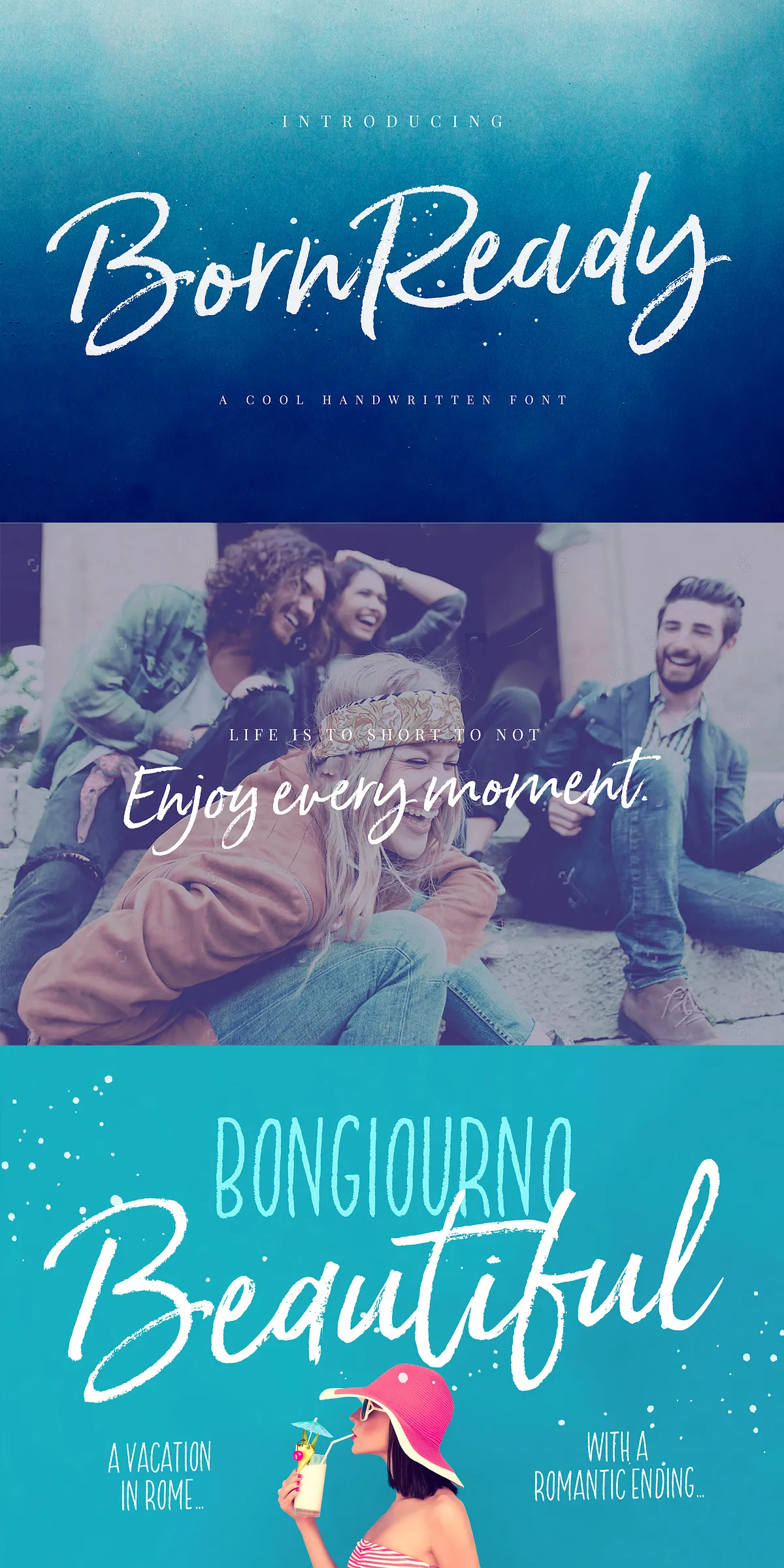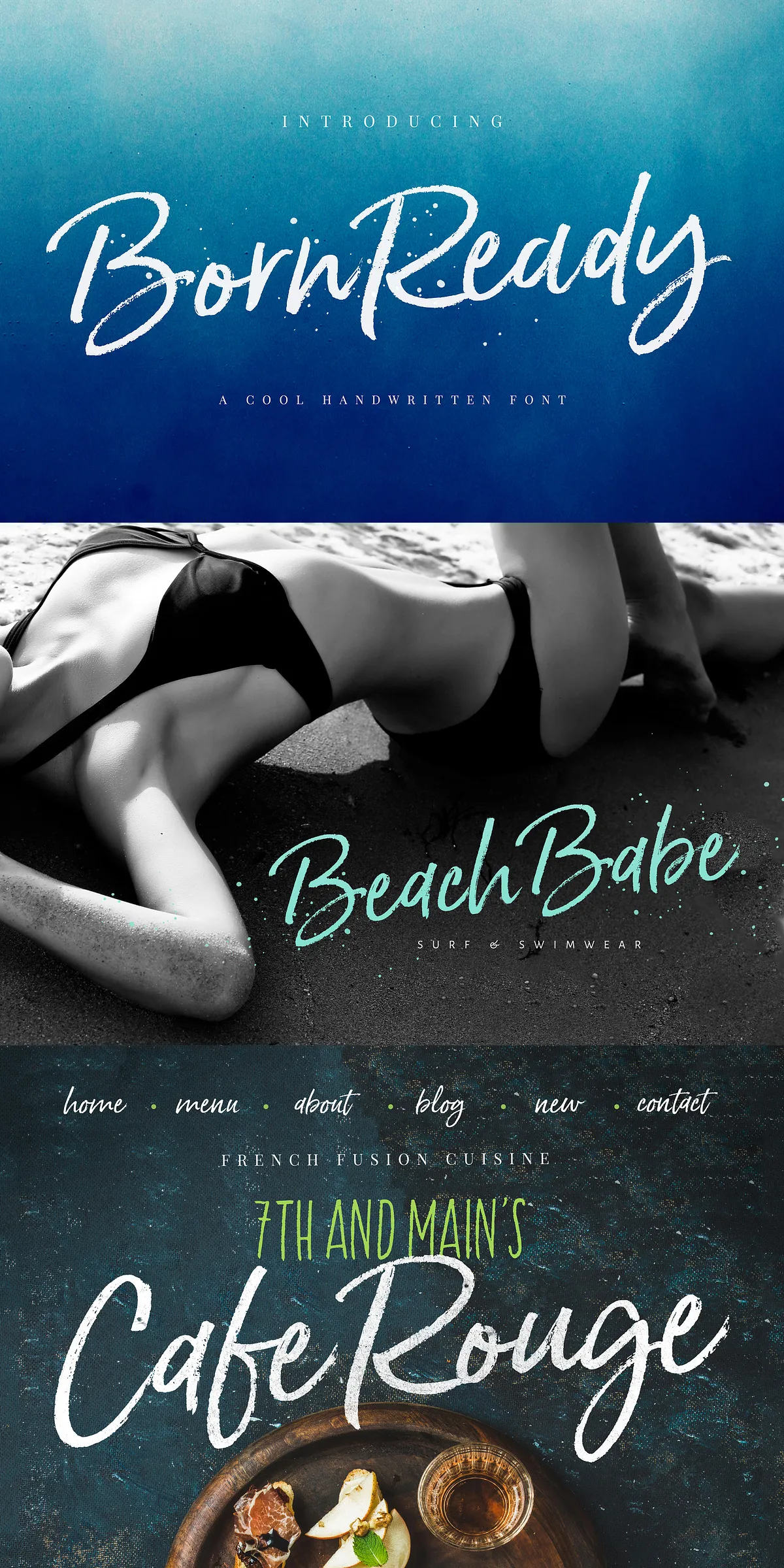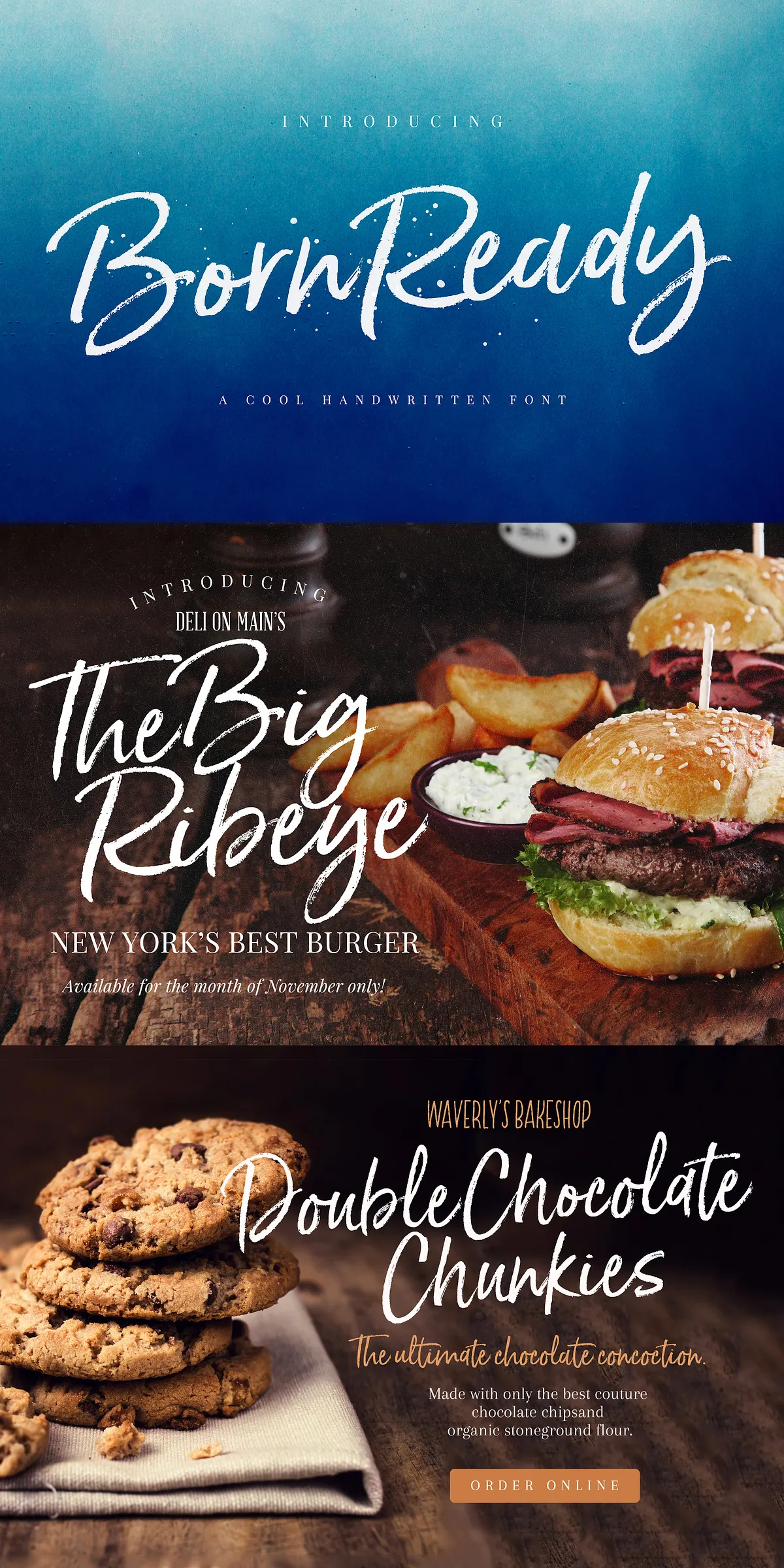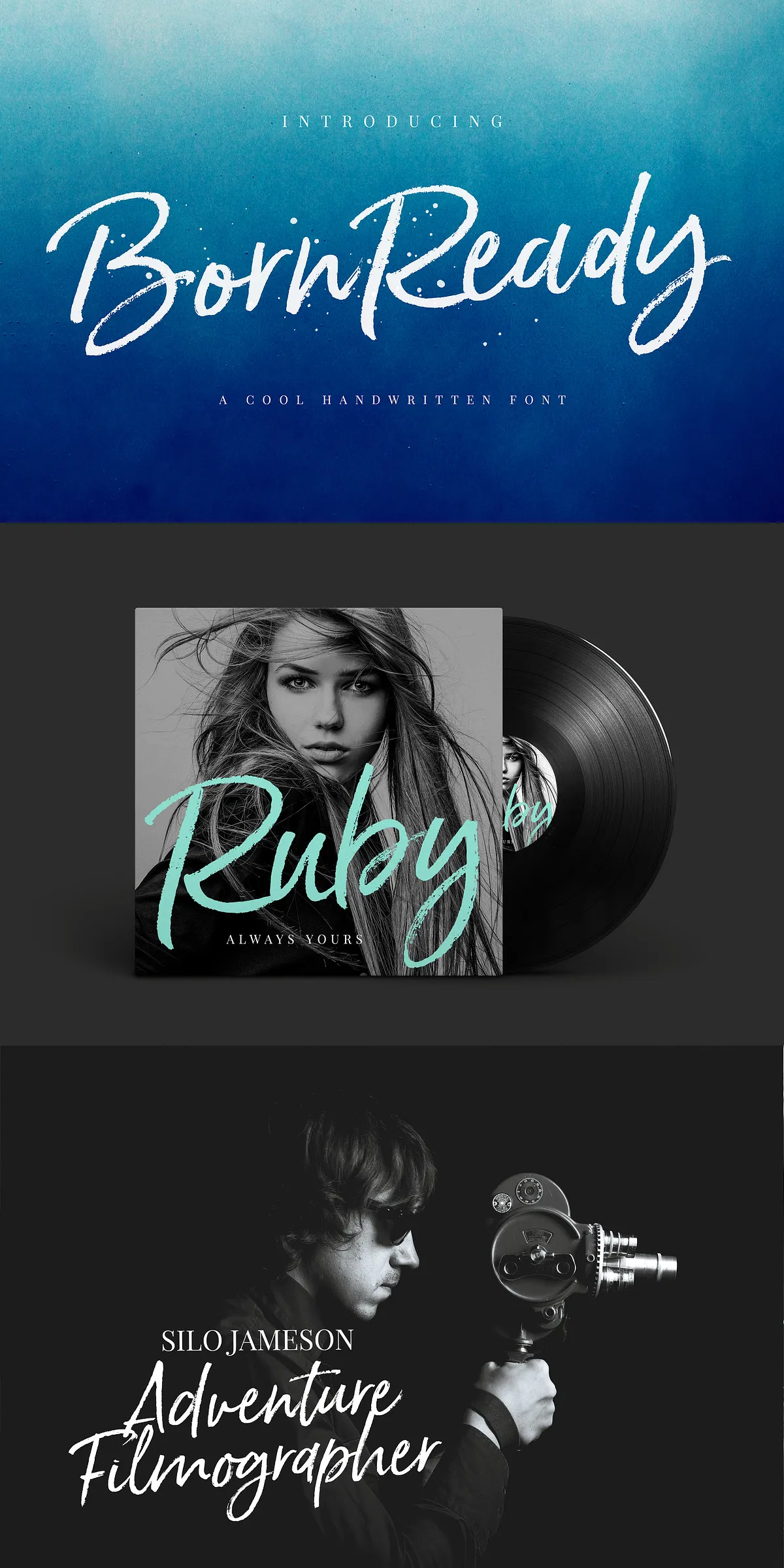
Step into the spotlight with Born Ready, a high-impact, dry marker-inspired handwritten font that brings raw, authentic texture and expressive personality to your designs. Crafted for creators who crave visual intensity and creative freedom, Born Ready doesn’t just convey words—it declares them. With its gritty, hand-sketched lines, rough edges, and dynamic character flow, this font captures the unfiltered energy of real marker on paper. Whether you’re building a bold brand identity, designing event posters, or creating packaging that stands out on the shelf, Born Ready delivers instant impact and undeniable character.
Multiple Styles, One Powerful Font Family
Born Ready isn’t a single style—it’s a versatile expression. The font family includes three distinct personalities to match every creative vision:
- Regular Style – Built for balance and impact, with natural flow and subtle texture that feels hand-drawn yet professional.
- Slanted Style – Dynamic and forward-moving, this slanted variant adds urgency, motion, and modern edge to headlines and labels.
- Upright Style – Cleaner and more structured, offering a strong, centered presence ideal for logos, titles, and official-looking statements.
Each style is fully functional with complete character sets, ensuring consistency and creativity across your entire project. No matter your direction—edgy, playful, or bold—Born Ready has the right flavor.
Customize Your Look with Built-In Alternates
Elevate your design with a smart, handcrafted touch. Born Ready includes a dedicated set of alternate lowercase letters, allowing you to fine-tune your typography for maximum visual interest. Swap out basic characters for more expressive versions to avoid repetition, improve rhythm, and add a personal, artisanal flair. Whether you’re crafting a social media graphic, a product label, or a brand manifesto, these alternates let you make every word feel intentional and unique.
- OpenType Feature Support – For users with OpenType-capable software, the OTF version unlocks advanced capabilities: full access to ligatures, stylistic alternates, contextual swaps, and custom glyph sets—all controllable via the font panel for instant results.
Unleash Your Creativity Across Any Project
Born Ready was built for real-world use, not just display. Its rugged style thrives in:
- Branding & Logo Design – Create memorable brand identities that feel authentic, bold, and unapologetically human.
- Packaging & Labels – Make your products stand out on shelves with handcrafted texture and emotional appeal.
- Event & Poster Graphics – Perfect for concerts, festivals, pop-up shops, and promotional campaigns where energy and attitude matter.
- Social Media & Digital Content – Generate eye-catching graphics for Instagram, TikTok, Pinterest, and YouTube thumbnails with instant visual punch.
- Editorial & Print Design – Use in magazines, zines, posters, or flyers to bring a tactile, handwritten feel to professional layouts.